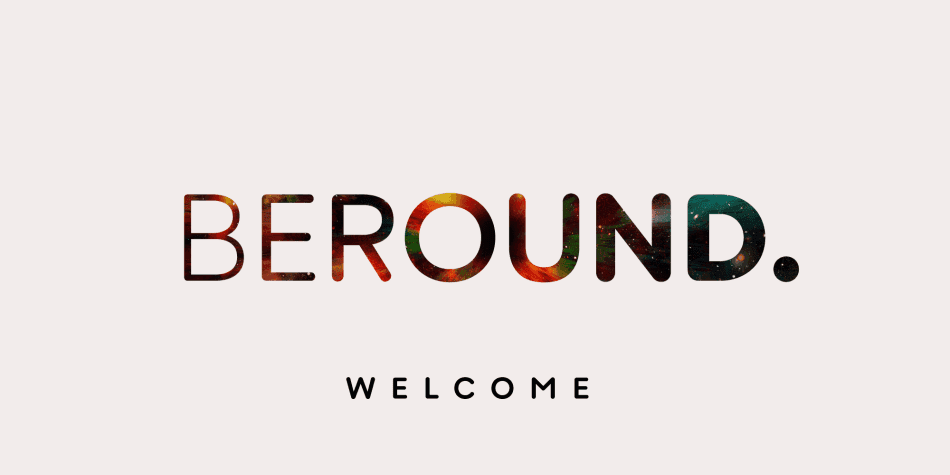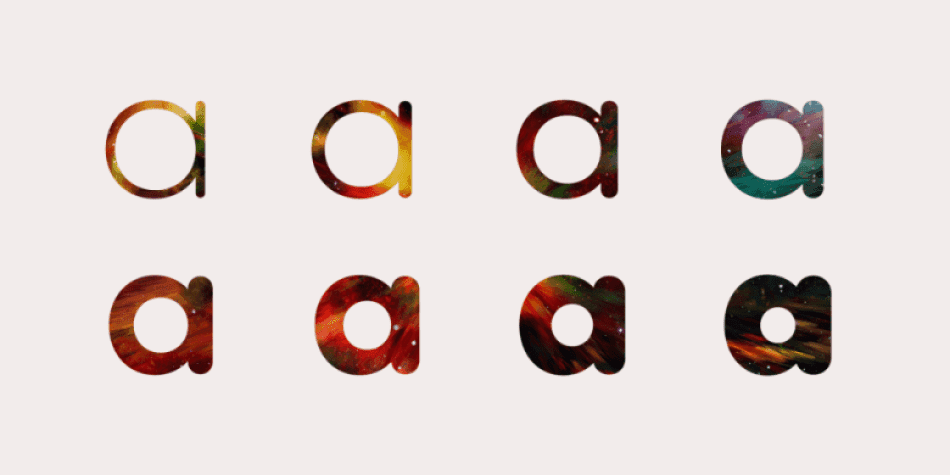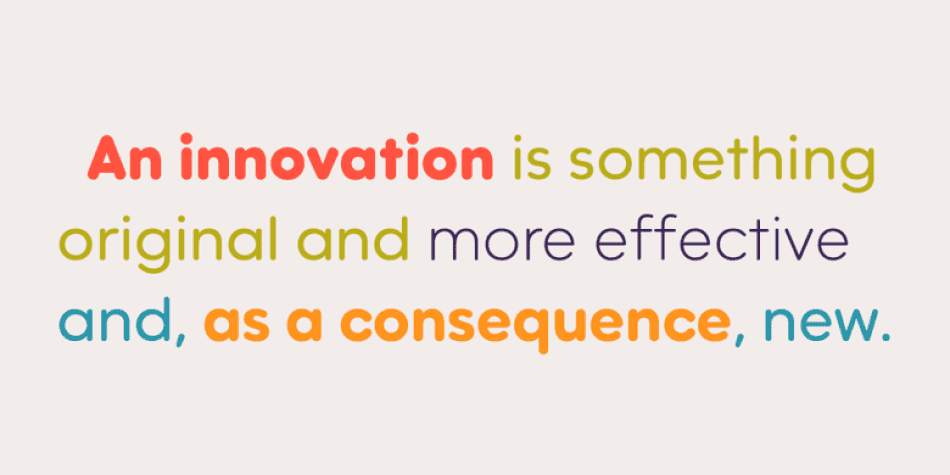
Beround is a strikingly distinctive sans serif font family that manages to combine readability with modernist lettering in one elegant package. Available with 16 weights and 8 uprights plus matching italics and featuring softly smooth corners for seamless corners, Beround makes an impressive statement when used for headlines, packaging advertising or corporate identity purposes.